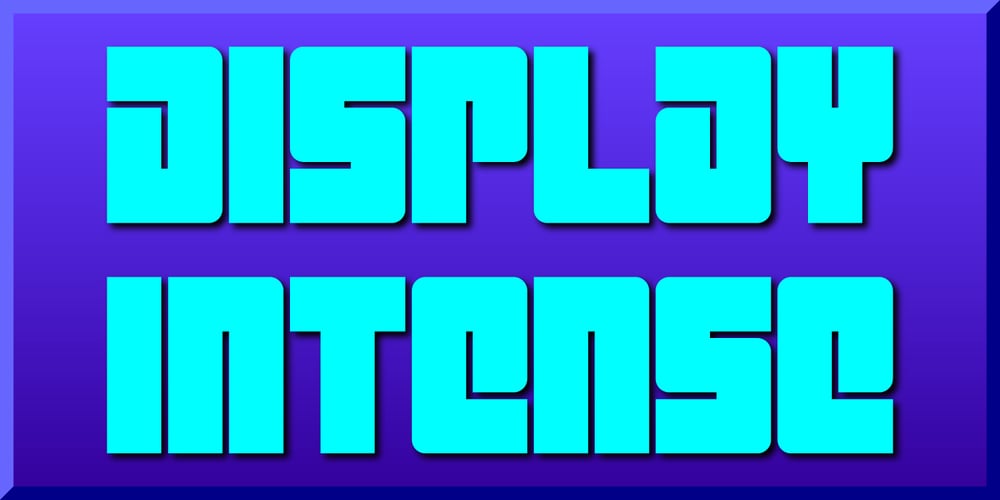
Display Intense Font Family was designed by Gerald Gallo and published by Gerald Gallo. Display Intense contains 1 styles and family package options. Display Intense is a display font designed specifically for display, headline, logotype and similar applications. It is not intended for text use or for use at small sizes.